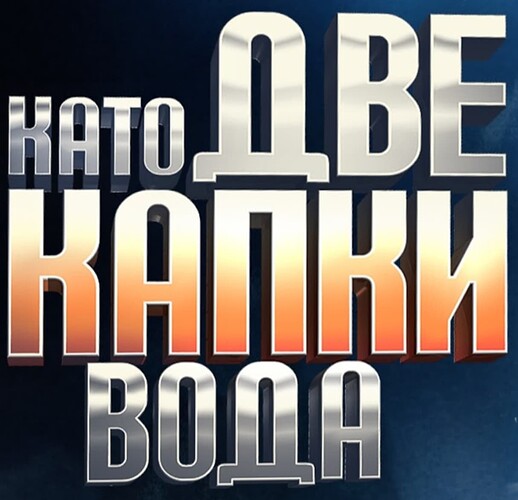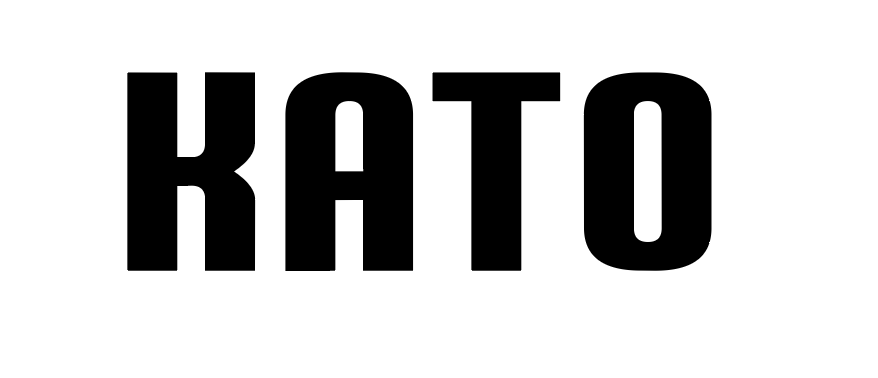
Hello, I am searching for the font name of the Bulgarian version of “Your Face Sounds Familiar” logo, called “Kato dve kapki voda”, (stylized az “КАТО ДВЕ КАПКИ ВОДА”). Can you please help me?
It looks like Erte, but it does not have Cyrillic range. It may not be Erte.